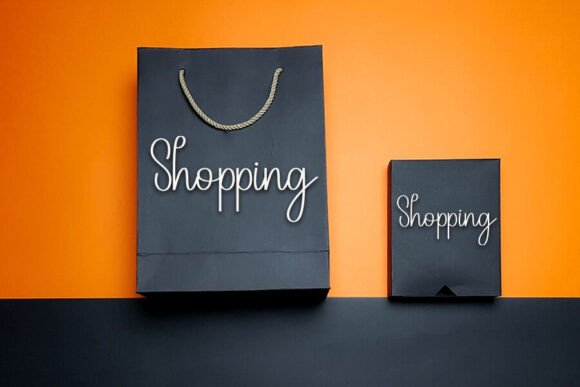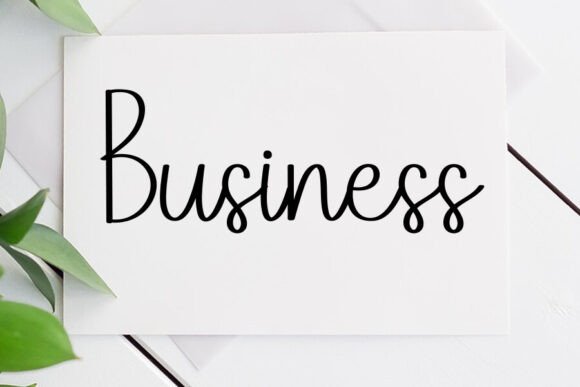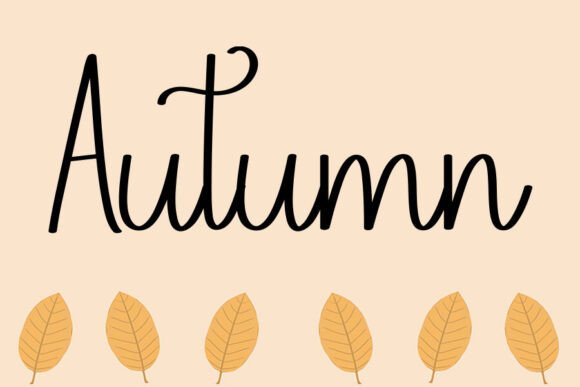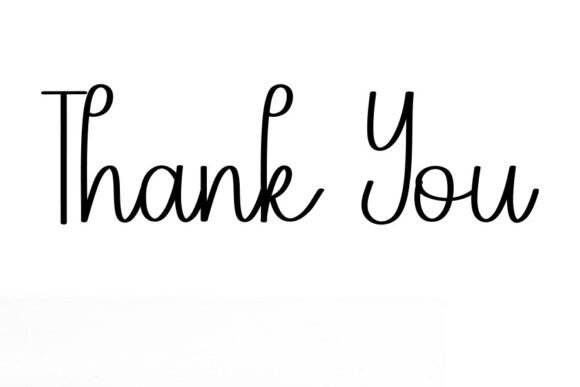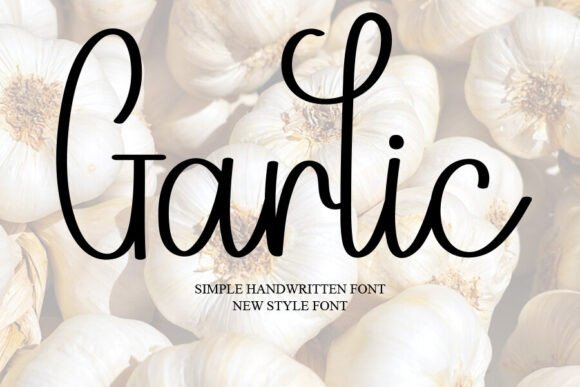
Introducing Garlic Font: The Sweet and Cursive Handwritten Font for Elegant Designs
Are you a designer or crafter looking for a font that can add a touch of elegance and whimsy to your projects? Look no further than Garlic Font, a sweet and cursive handwritten font that’s perfect for a variety of design ideas. With its gentle and romantic feel, Garlic Font is sure to make your designs stand out and leave a lasting impression.
What Makes Garlic Font Special?
Garlic Font is a unique and versatile font that’s designed to add a joyful and romantic touch to your projects. Its cursive and handwritten style gives it a personal and elegant feel that’s perfect for a range of design applications, from branding and logos to wedding stationery and greeting cards.
One of the things that sets Garlic Font apart is its ability to balance elegance with casualness. It’s a font that’s sophisticated enough to be used in high-end designs, yet playful and approachable enough to add a touch of whimsy to more casual projects.
Garlic Font is a versatile font that can be used in a wide range of design applications, including:
- Branding: Use Garlic Font to create a unique and memorable brand identity that stands out from the crowd.
- Logos: Create a custom logo that showcases your brand’s personality and style with Garlic Font.
- Wedding Stationery: Add a touch of romance and elegance to your wedding stationery, including invitations, save-the-dates, and thank-you cards.
- Greeting Cards: Use Garlic Font to create beautiful and heartfelt greeting cards for special occasions.
- Fashion: Add a touch of style and sophistication to your fashion designs, including lookbooks and marketing materials.
- Marketing Promotion: Use Garlic Font to create eye-catching marketing materials, including flyers, brochures, and social media graphics.
Why Choose Garlic Font?
There are many reasons why Garlic Font is a great choice for designers and crafters, including:
- Unique and Memorable: Garlic Font is a one-of-a-kind font that’s sure to make your designs stand out.
- Elegant and Whimsical: Garlic Font strikes the perfect balance between elegance and whimsy, making it perfect for a range of design applications.
- Easy to Read: Garlic Font is clear and easy to read, making it perfect for body text and headlines.
- Versatile: Garlic Font can be used in a wide range of design applications, from digital designs to print materials.
Tips for Using Garlic Font
Here are a few tips for getting the most out of Garlic Font:
- Use it as a Headline Font: Garlic Font is perfect for headlines and titles, where its elegant and cursive style can really shine.
- Pair it with a Sans-Serif Font: For body text, try pairing Garlic Font with a clean and simple sans-serif font to create a beautiful contrast.
- Experiment with Colors: Garlic Font looks great in a range of colors, from soft pastels to rich jewel tones.
- Don’t be Afraid to Get Creative: Garlic Font is a versatile font that can be used in a wide range of design applications, so don’t be afraid to get creative and try new things!
In conclusion, Garlic Font is a sweet and cursive handwritten font that’s perfect for designers and crafters looking to add a touch of elegance and whimsy to their projects. With its unique and memorable style, Garlic Font is sure to make your designs stand out and leave a lasting impression.